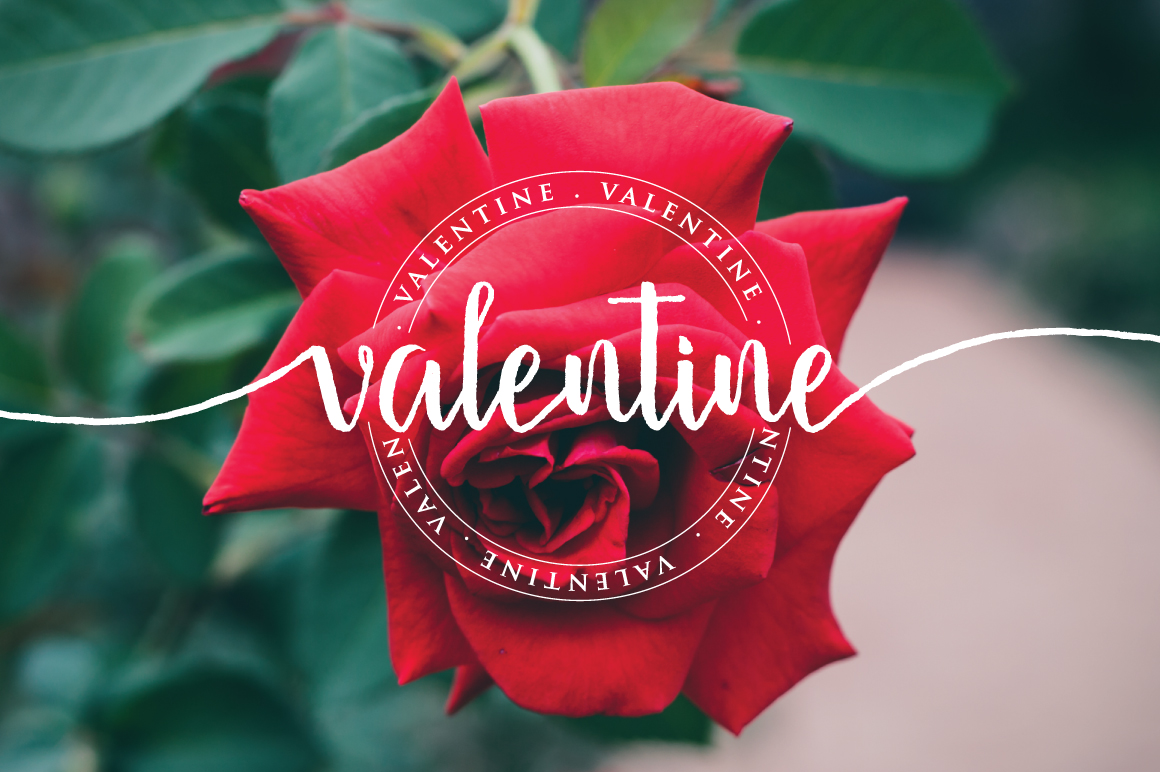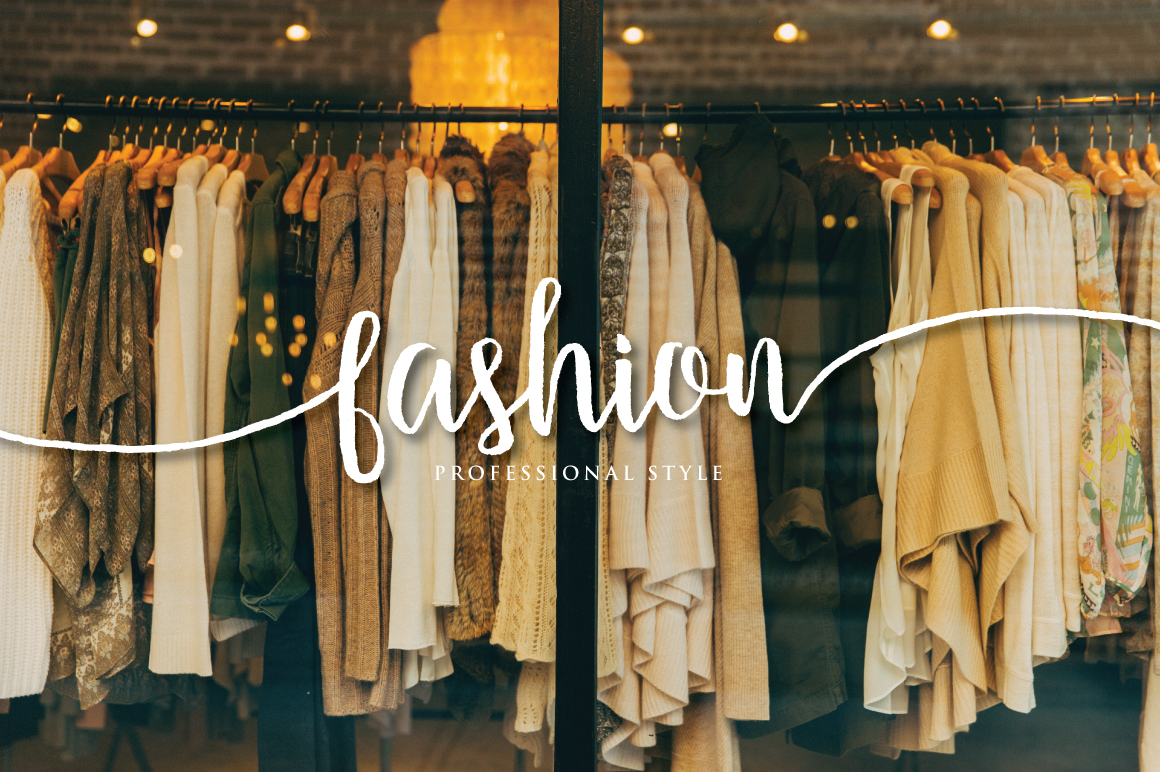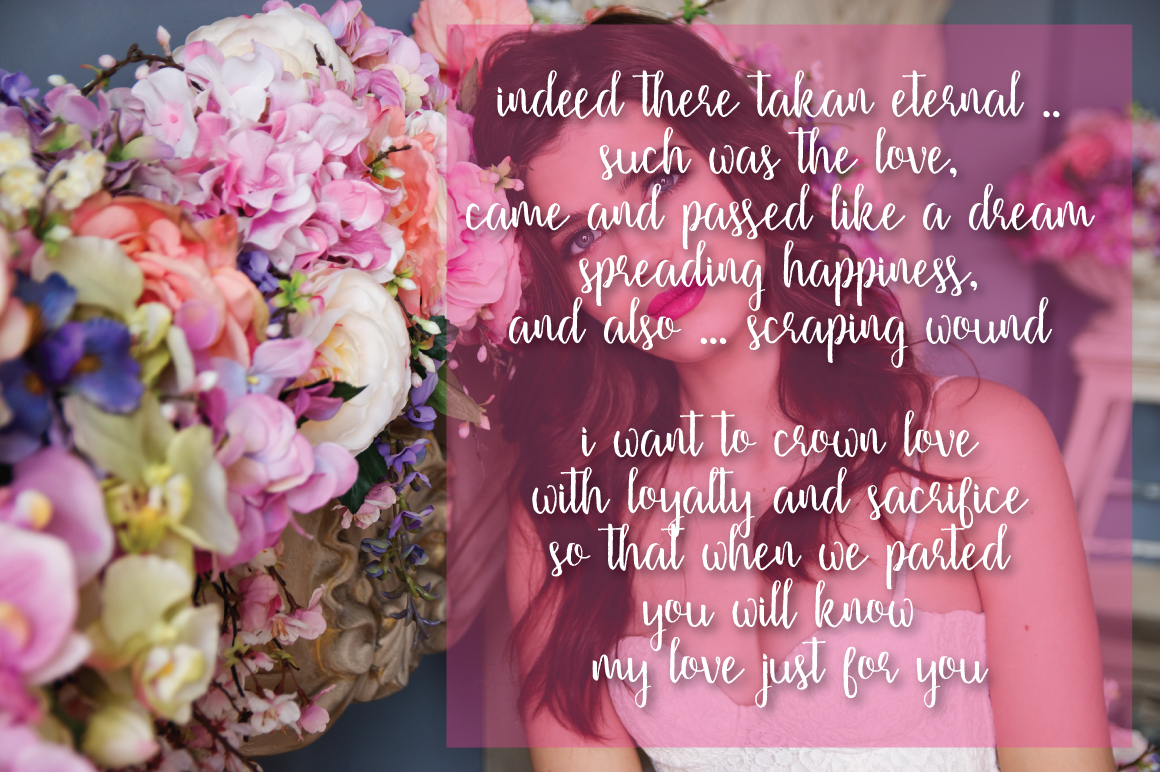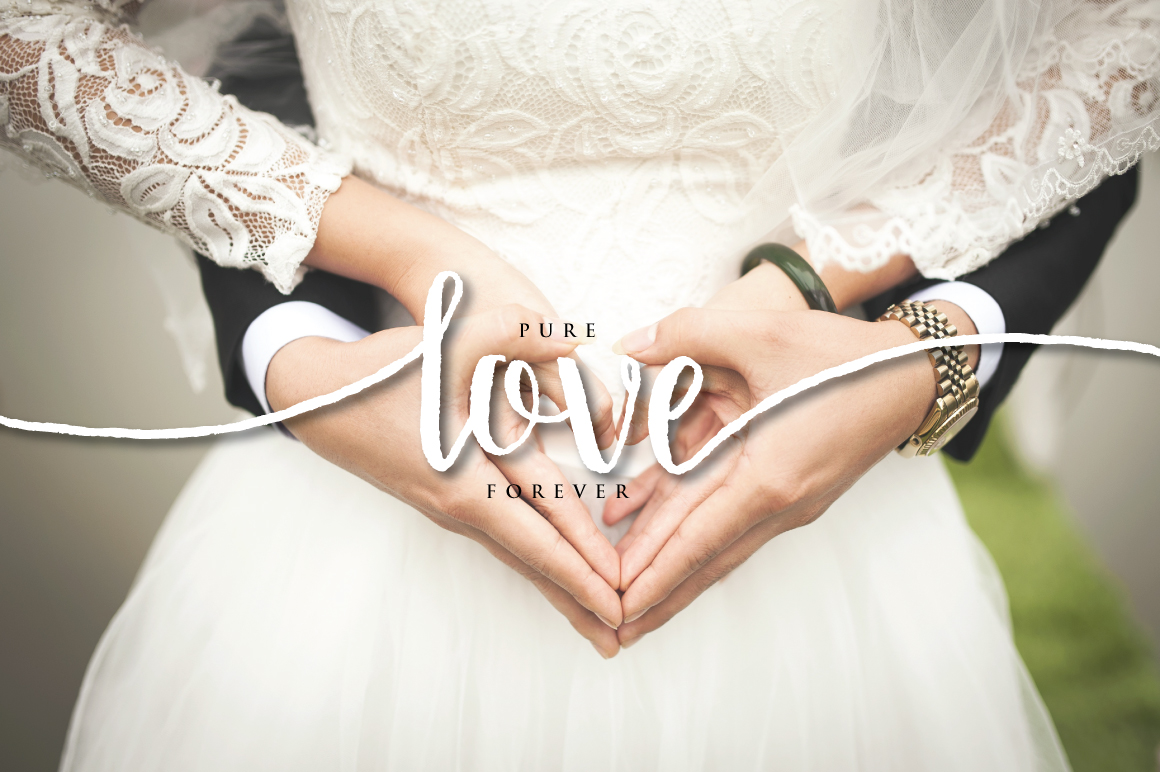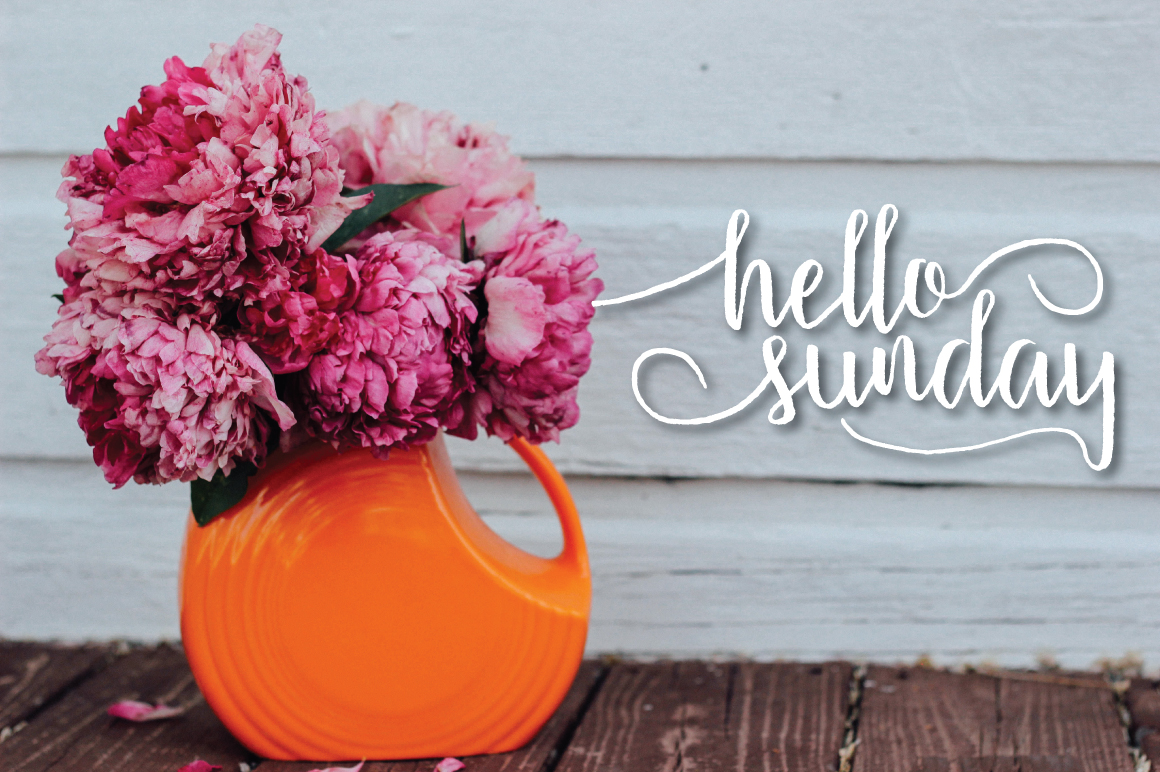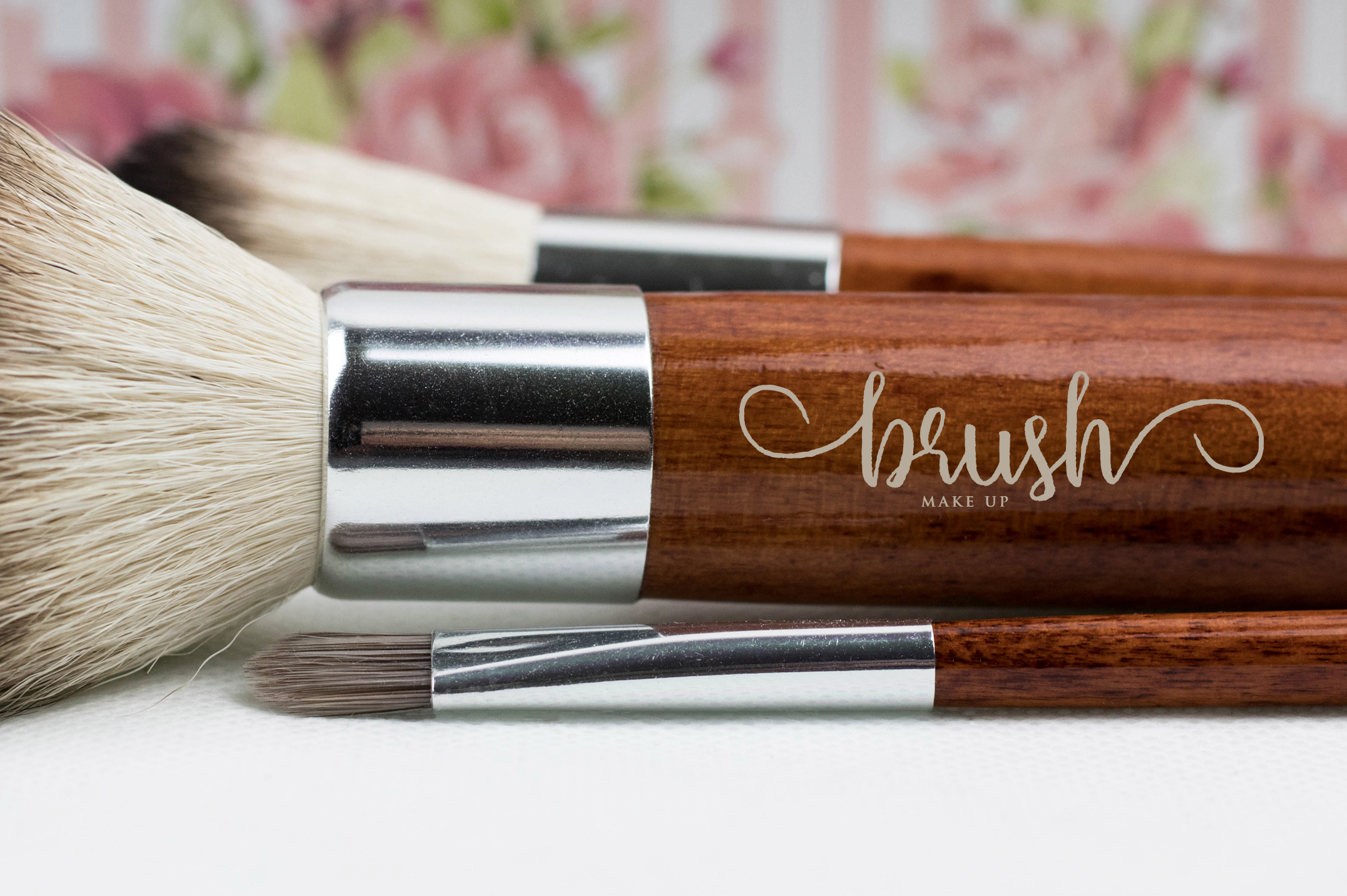
Firdaus Font is a beautiful, handmade font that brings a touch of elegance and sophistication to any design project. With its unique calligraphy style, Firdaus is perfect for designers and crafters looking to add a personal touch to their work. In this article, we’ll take a closer look at the Firdaus Font, its features, and how you can use it to elevate your designs.
Firdaus is a fresh, handmade font that has a calligraphy style. It is designed to mimic the look of traditional calligraphy, with flowing lines and elegant letterforms. The font is perfect for a variety of design projects, including wedding invitations, branding, and packaging.
- Handmade with love: Firdaus Font is carefully crafted by hand, giving it a unique and personal touch.
- Calligraphy style: The font features a beautiful calligraphy style, with flowing lines and elegant letterforms.
- Fresh and modern: Despite its traditional roots, Firdaus Font has a fresh and modern feel that’s perfect for contemporary design projects.
- Multilingual support: Firdaus Font supports multiple languages, making it a great choice for designers working on international projects.
- Wedding invitations and stationery: Firdaus Font is perfect for creating beautiful wedding invitations, thank you cards, and other stationery.
- Branding and packaging: Use Firdaus Font to add a touch of elegance to your brand’s packaging and marketing materials.
- Signage and display graphics: Firdaus Font can be used to create stunning signage and display graphics for events, exhibitions, and retail spaces.
- Digital designs: Firdaus Font can be used in digital designs, such as social media graphics, email headers, and website titles.
- Experiment with different sizes and colors: Firdaus Font looks great in a variety of sizes and colors, so don’t be afraid to experiment and find the perfect combination for your design.
- Pair it with other fonts: Firdaus Font can be paired with other fonts to create a unique and interesting design. Try pairing it with a bold sans-serif font for a striking contrast.
- Use it to add a personal touch: Firdaus Font is perfect for adding a personal touch to your designs. Use it to create custom illustrations, icons, or graphics.
Firdaus Font is a beautiful, handmade font that brings a touch of elegance and sophistication to any design project. With its unique calligraphy style and fresh, modern feel, it’s perfect for designers and crafters looking to add a personal touch to their work. Whether you’re working on a wedding invitation, branding project, or digital design, Firdaus Font is a great choice. So why not give it a try and see how it can elevate your designs?